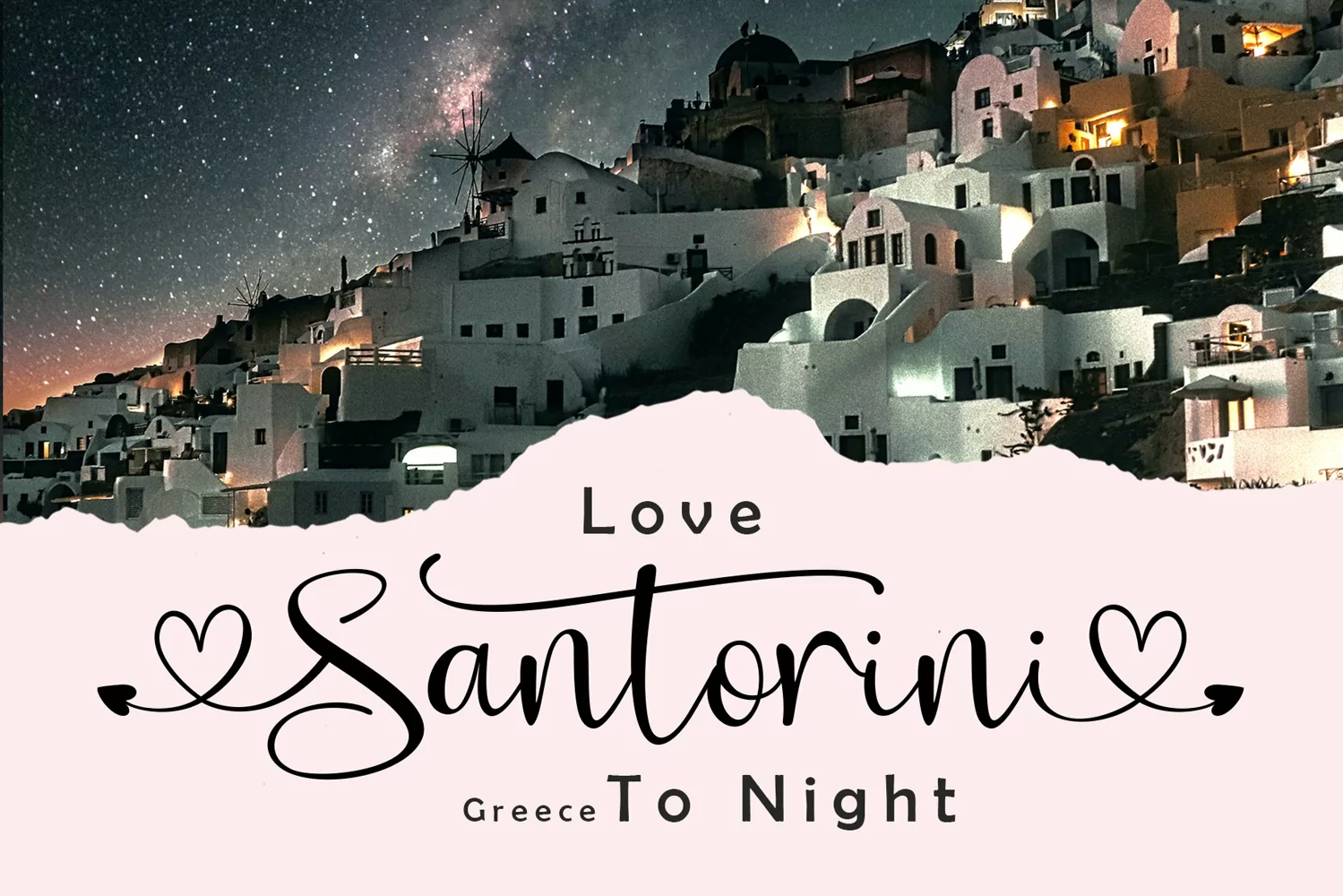
Sweet boho
Alima - this handwritten font that we worked on was amazing very real for something that needs a unique touch or you also want something eye-catching to your liking.
This font is perfect for any job that requires a unique handwritten script font.